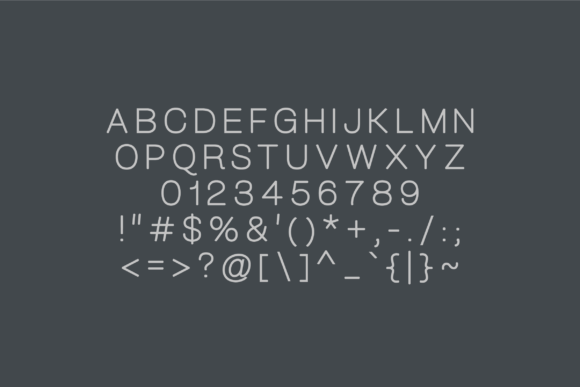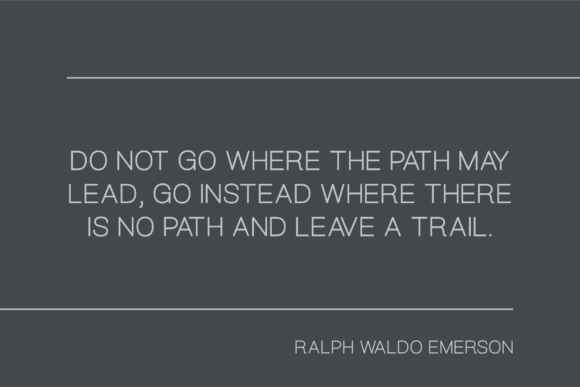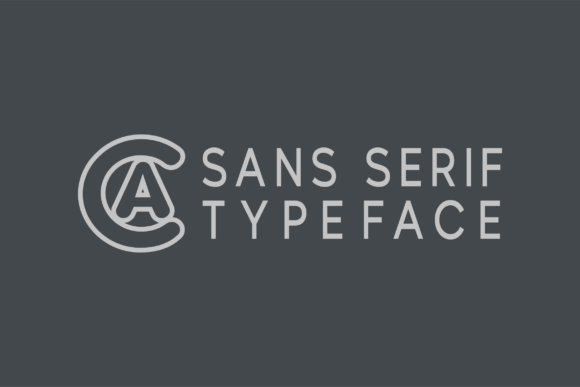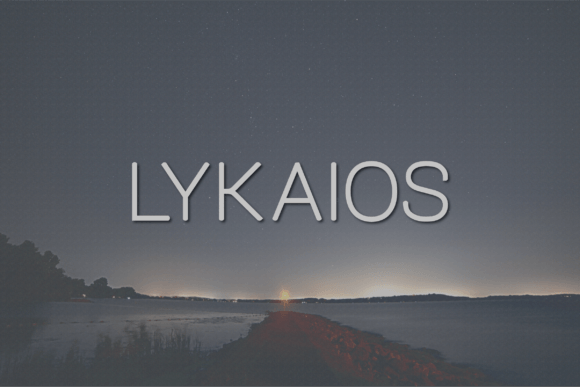
Introduction to Lykaios Font
Discover the allure of Lykaios, a sleek and sophisticated sans-serif typeface.
Lykaios elegantly blends modern design with timeless class, presenting a comprehensive type package that includes upper-case characters, the numerals 0-9, and a versatile assortment of punctuation and symbols Its multifaceted design exudes versatility, effortlessly elevating projects ranging from logos and wedding invitations to quotes, advertisements, print works, magazines, and beyond.
Key Features of Lykaios Font